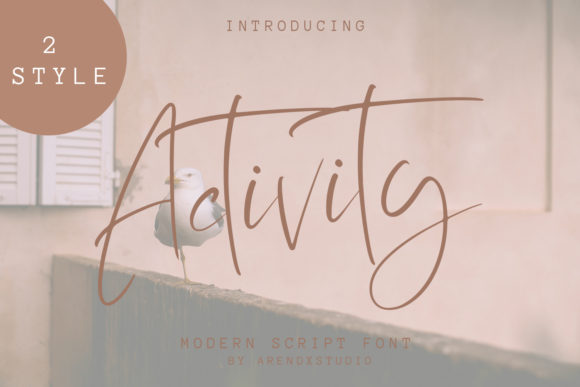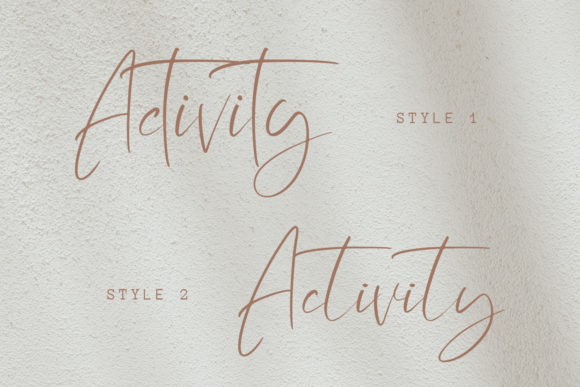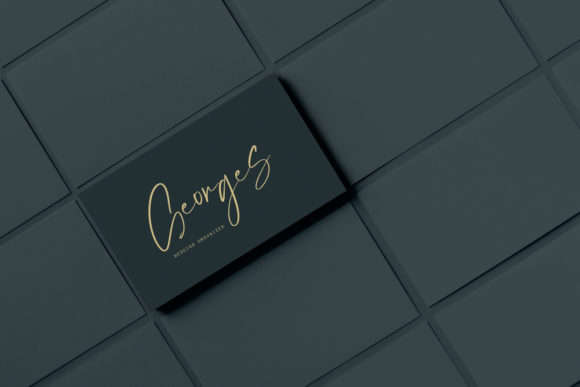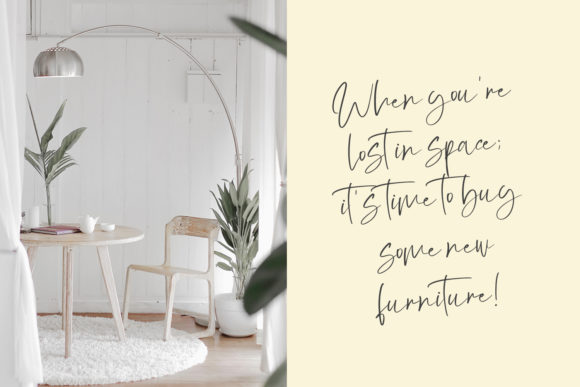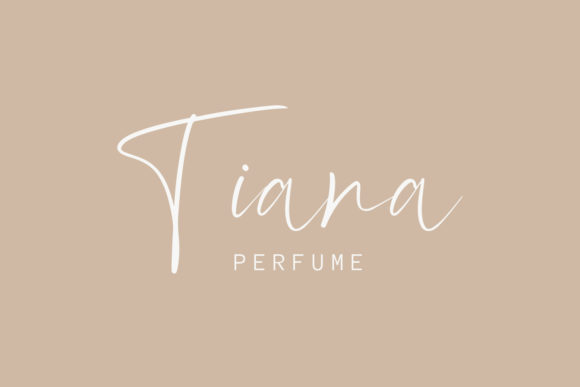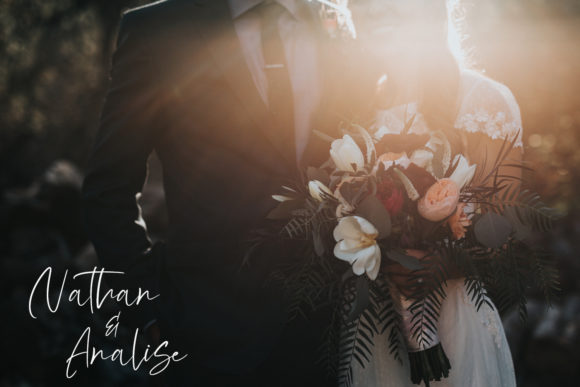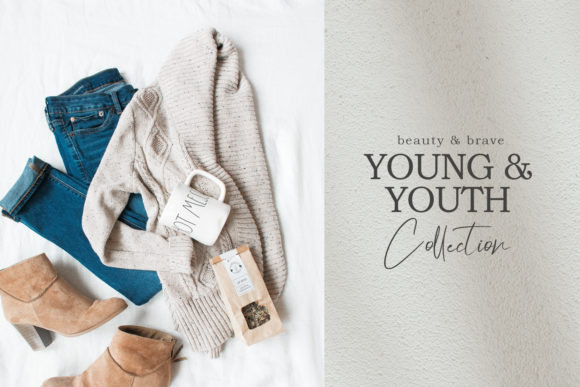
HomeScript FontsActivity Font Script Fonts Activity Font FacebookXPinterestWhatsApp Activity Font Poster 2 Activity Font Poster 3 Activity Font Poster 4 Activity Font Poster 5 Activity Font Poster 6 Activity Font Poster 7 About Activity Font Activity is a smooth and unique handwritten font that will add a bold flavor to any design idea. DOWNLOAD NOW People also explored Become Choice Font Overthinking Font Newland Giordano Font Qrown Brand Font Hockey Goal Font Rancoons Font Famous Script Font Megathon Font 320 0 TagsActivity Font Previous articleUntitled Artwork FontNext articleAgatha Font LEAVE A REPLY Cancel reply Comment: Please enter your comment! Name:* Please enter your name here Email:* You have entered an incorrect email address! Please enter your email address here Website: Save my name, email, and website in this browser for the next time I comment. Personal Use Free Covelia Personal Use Free Read more about this font Farmgarden Personal Use Free Read more about this font Lovely Girl Personal Use Free Read more about this font Love Memories Personal Use Free Read more about this font BLOG Modern Sans-Serif Fonts That Brands Love in 2025 In 2025, modern sans-serif fonts remain a top choice for brands looking to project clarity, professionalism, and... Top 7 Google Fonts Alternatives for Faster and Privacy-Friendly Web Design (2025) Top 10 Handwritten Fonts That Elevate Your Designs Best Fonts for T-Shirt Design – Top 2025 Picks